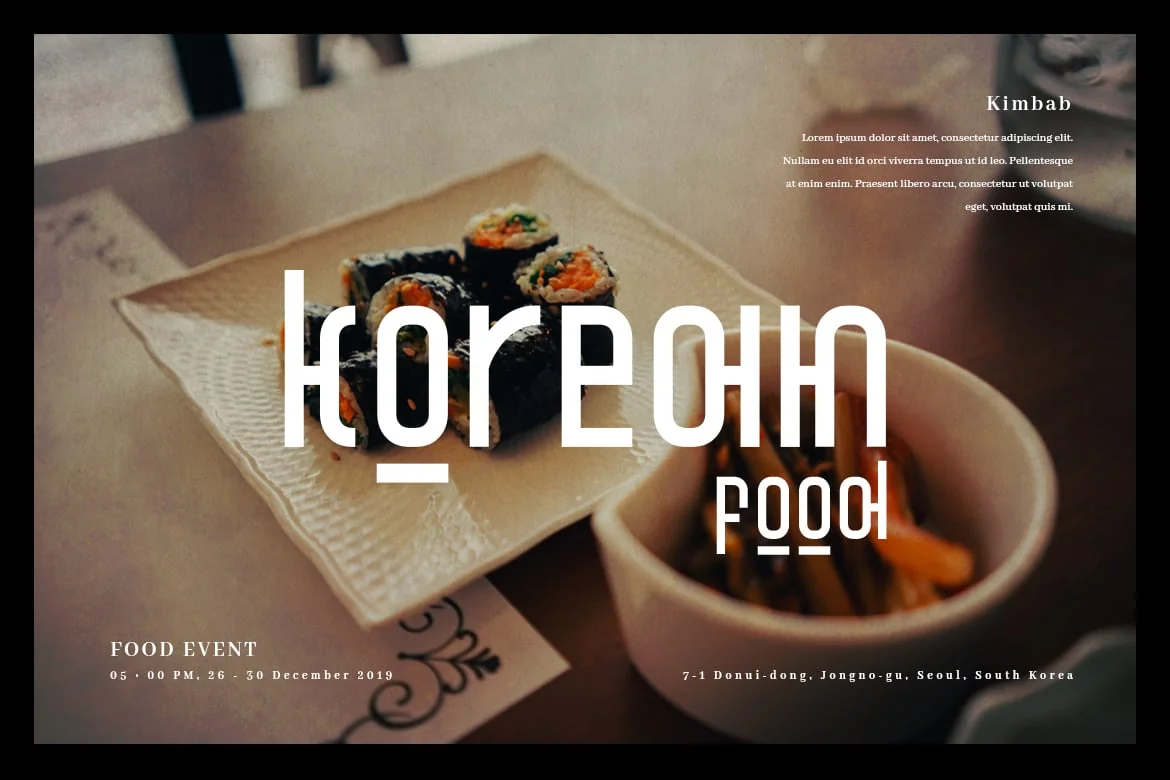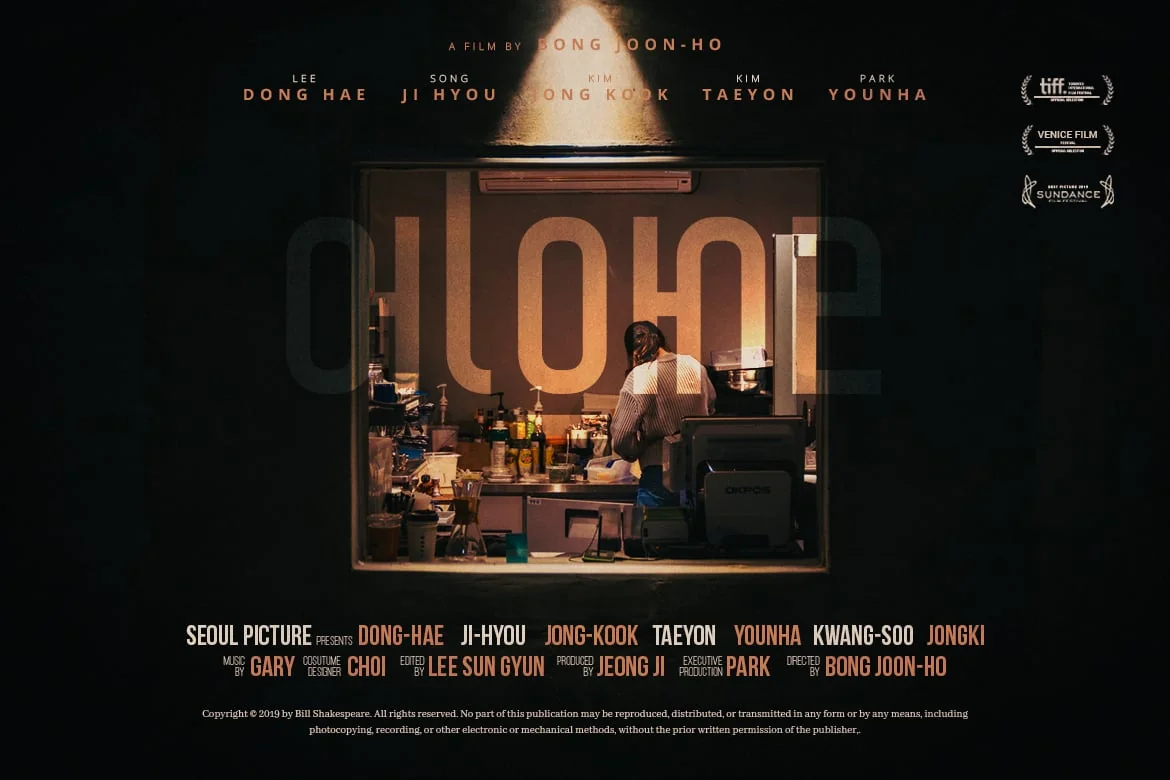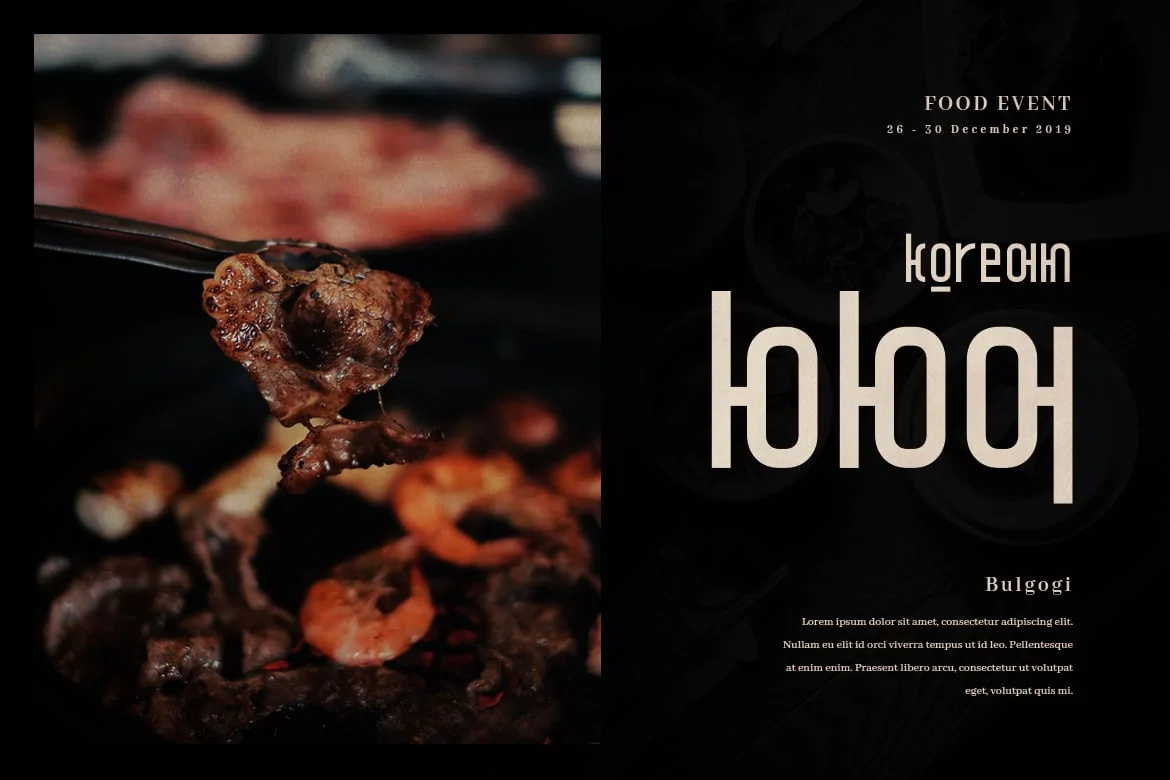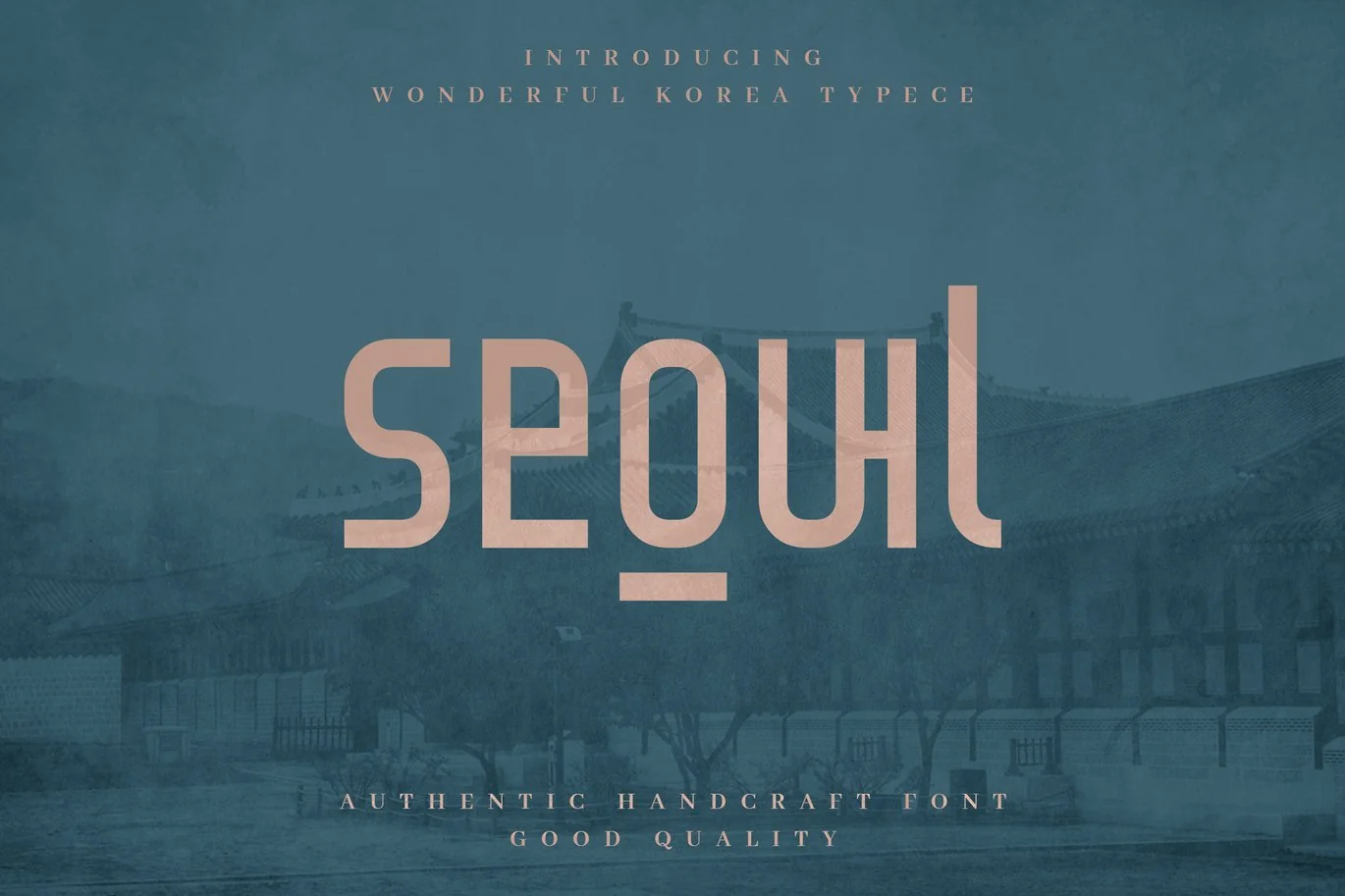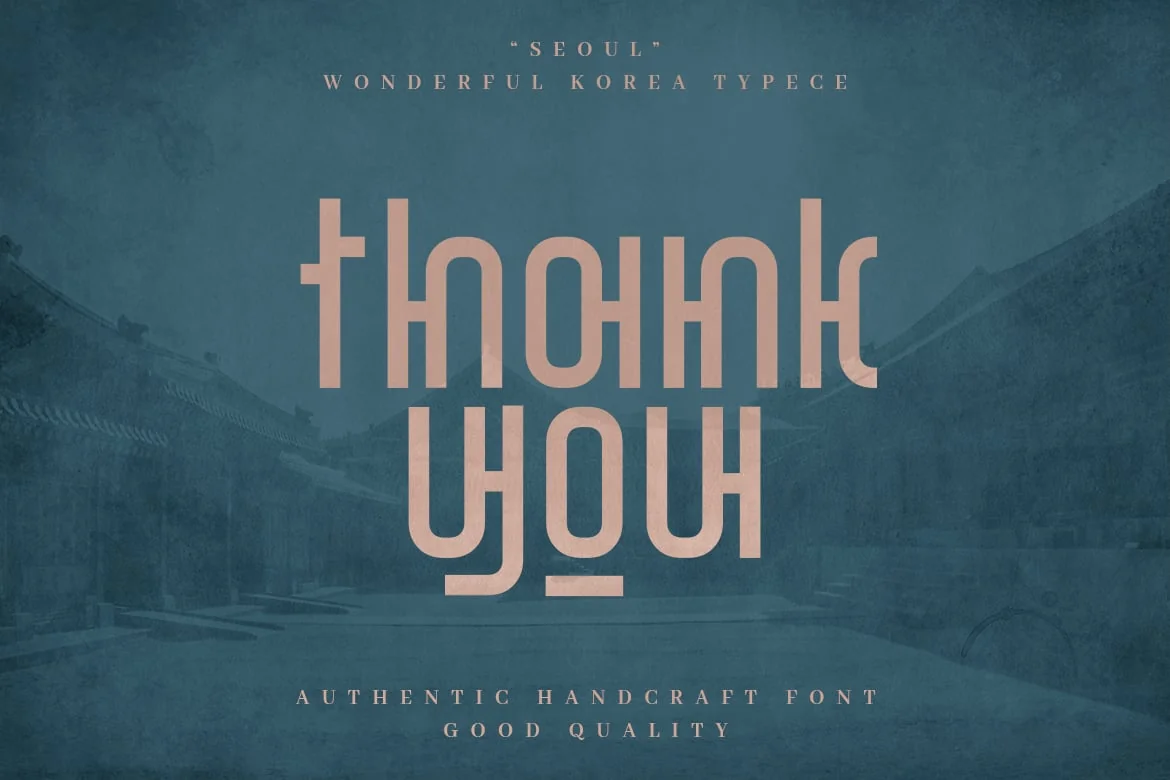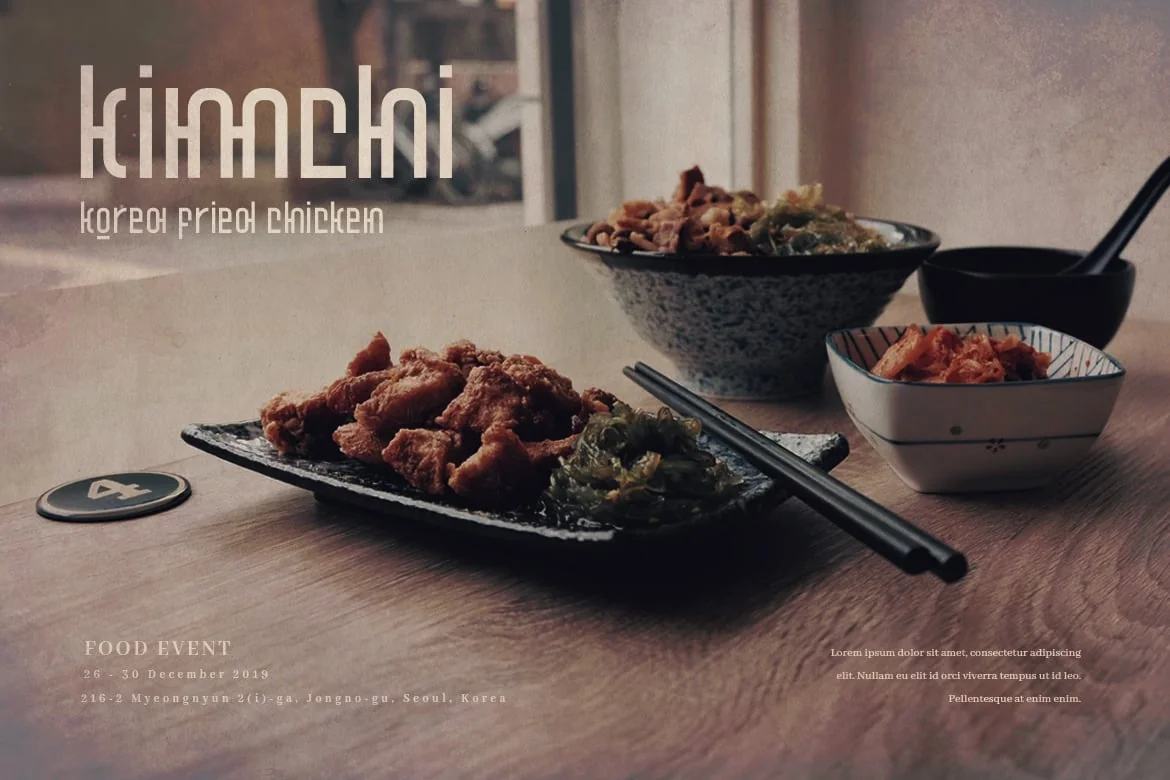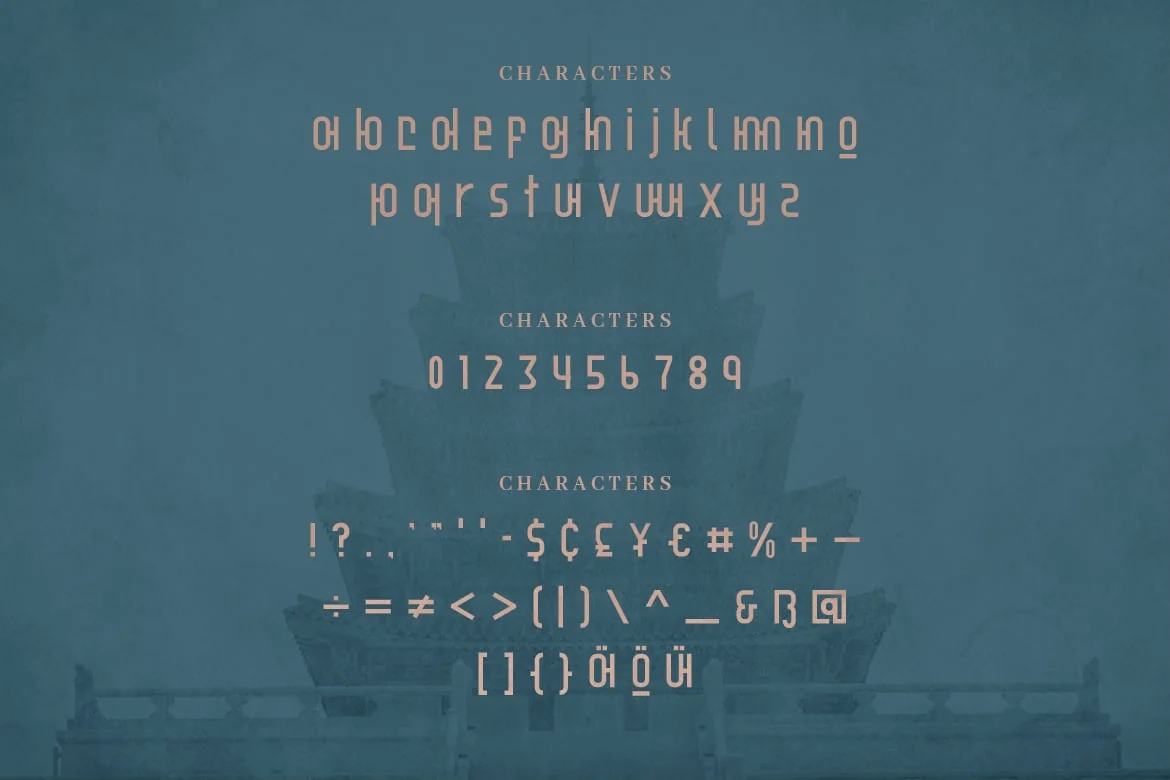
Seoul – Authentic Korean Typeface
Introducing Seoul font. Are you looking for a bold and solid display font that has authentic korean traditional letter feeling? We can help! Try to download our Seoul font. The font is suitable to use for many occasion such as traveling, poetry, movie title, food, quote, book title, brand identity, and many more.